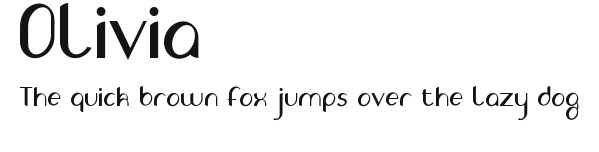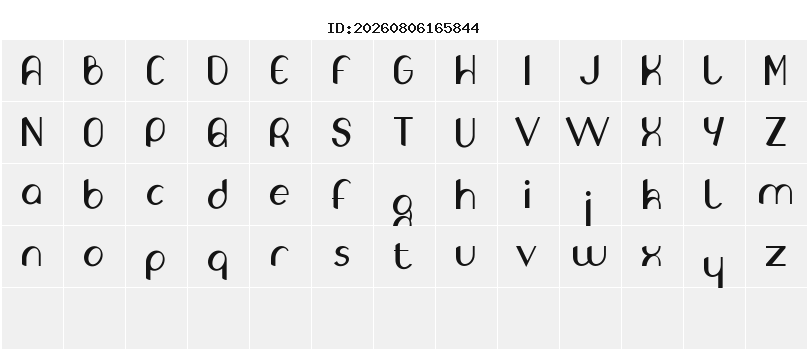
• Designer: Beno”t Sjoholm
About Olivia01.ttf
Olivia01.ttf is a modern, elegant sans-serif font designed for ultimate readability and visual harmony. Perfect for branding, headlines, web design, and print materials.